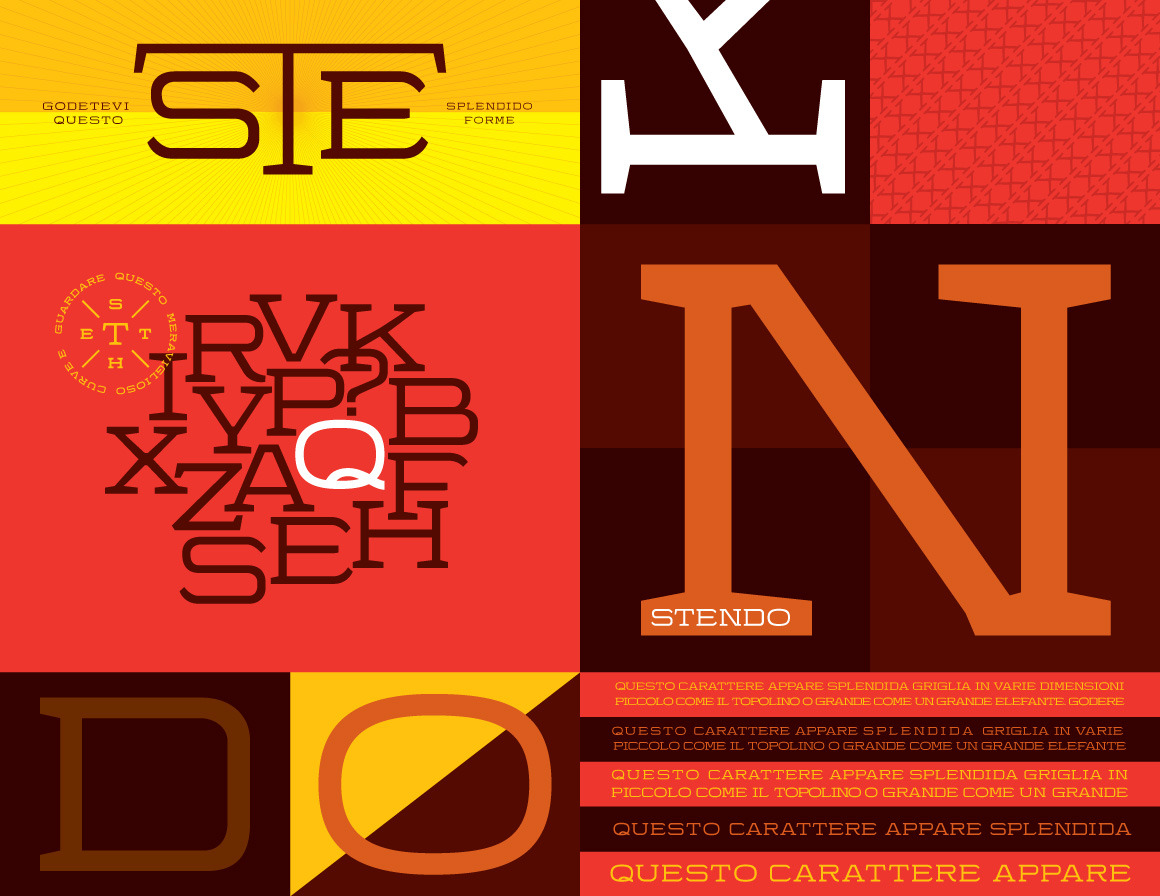
Stendo Extended Regular - Wide Font
NEW! Now with Russian, French, Portuguese, Spanish, and German support, updated kerning and stylistic alternates!
Neo retro wide font that doesn't lock you down to western style. Works remarkably well even at small print and digital sizes.